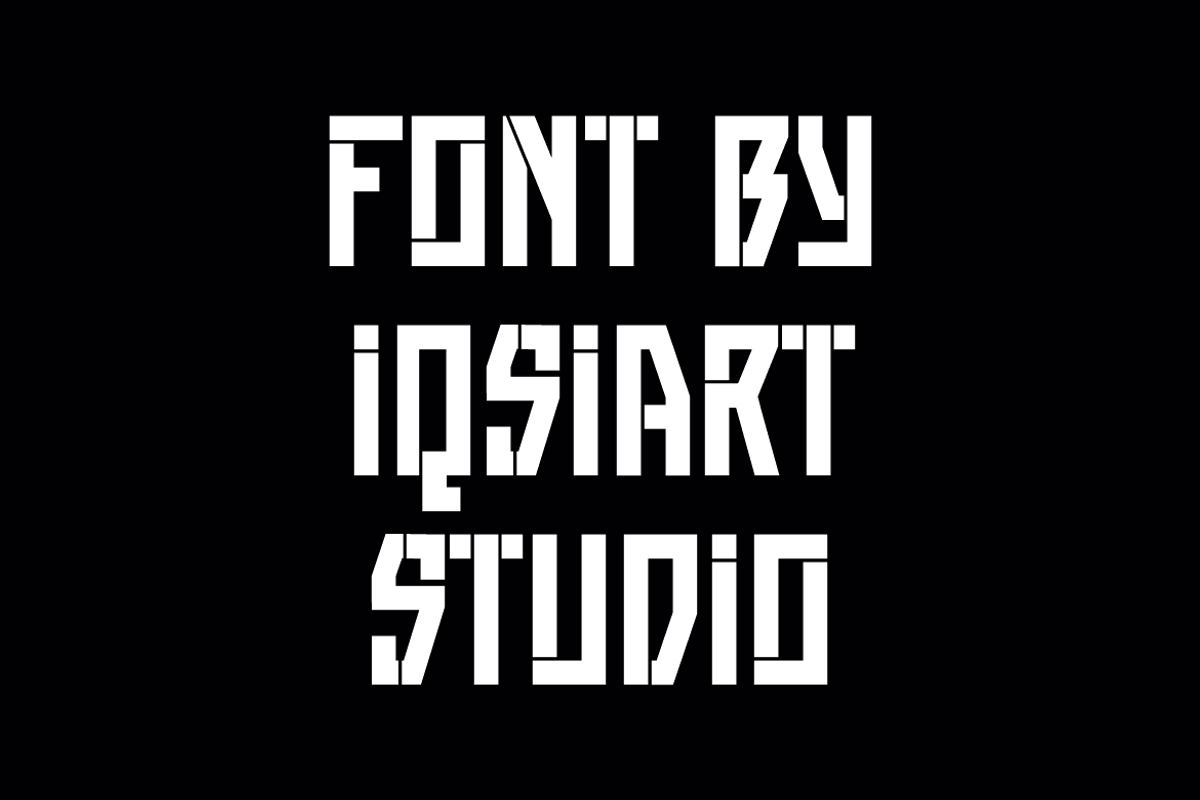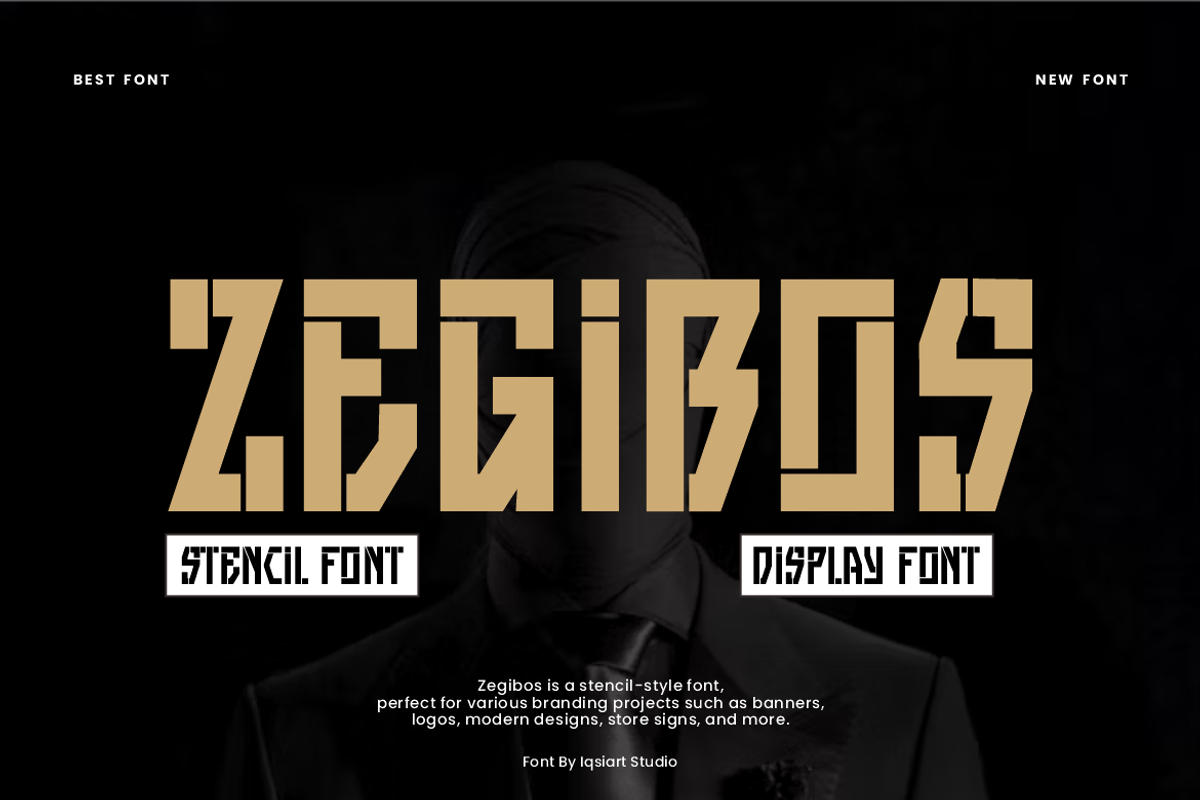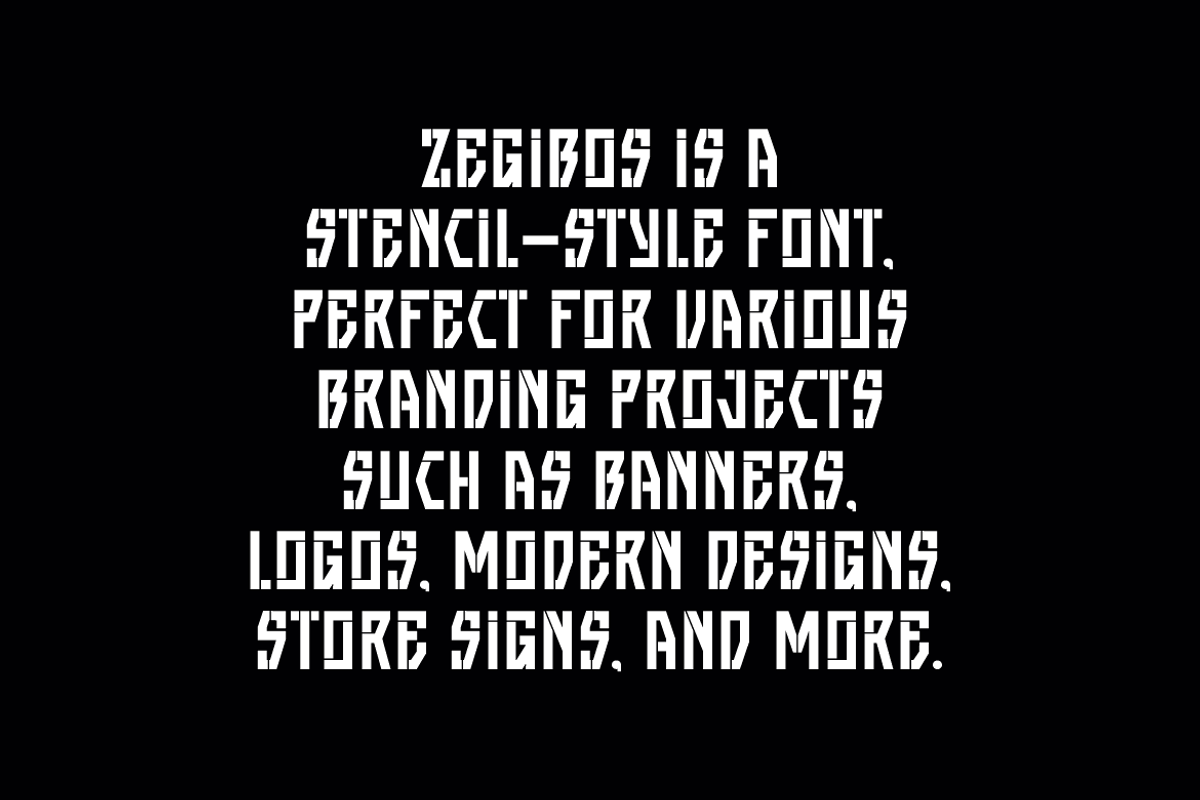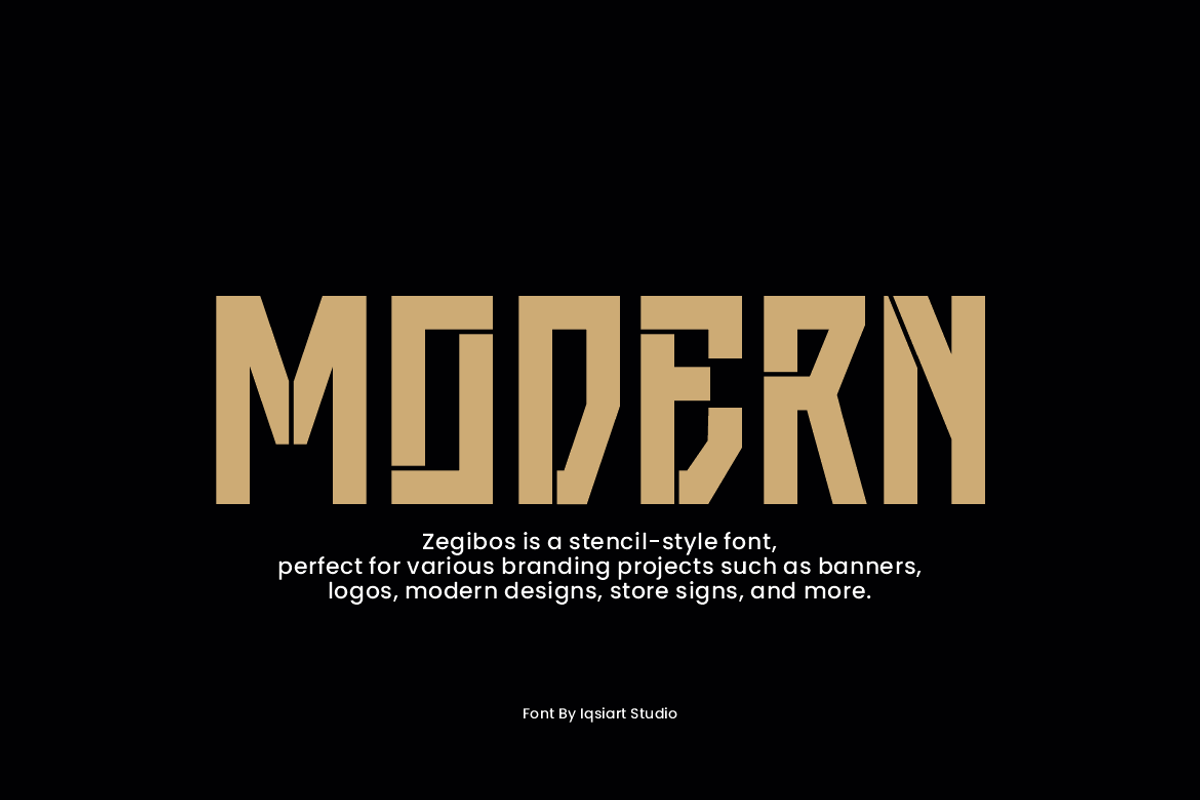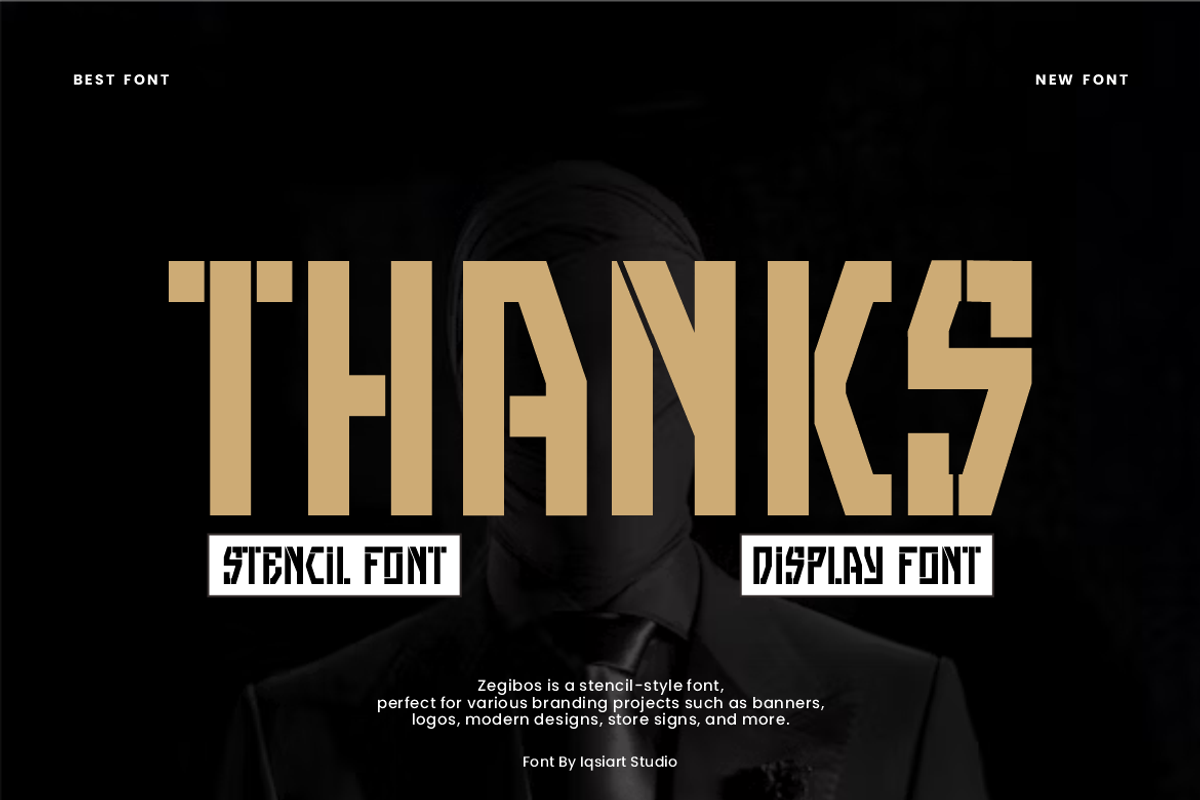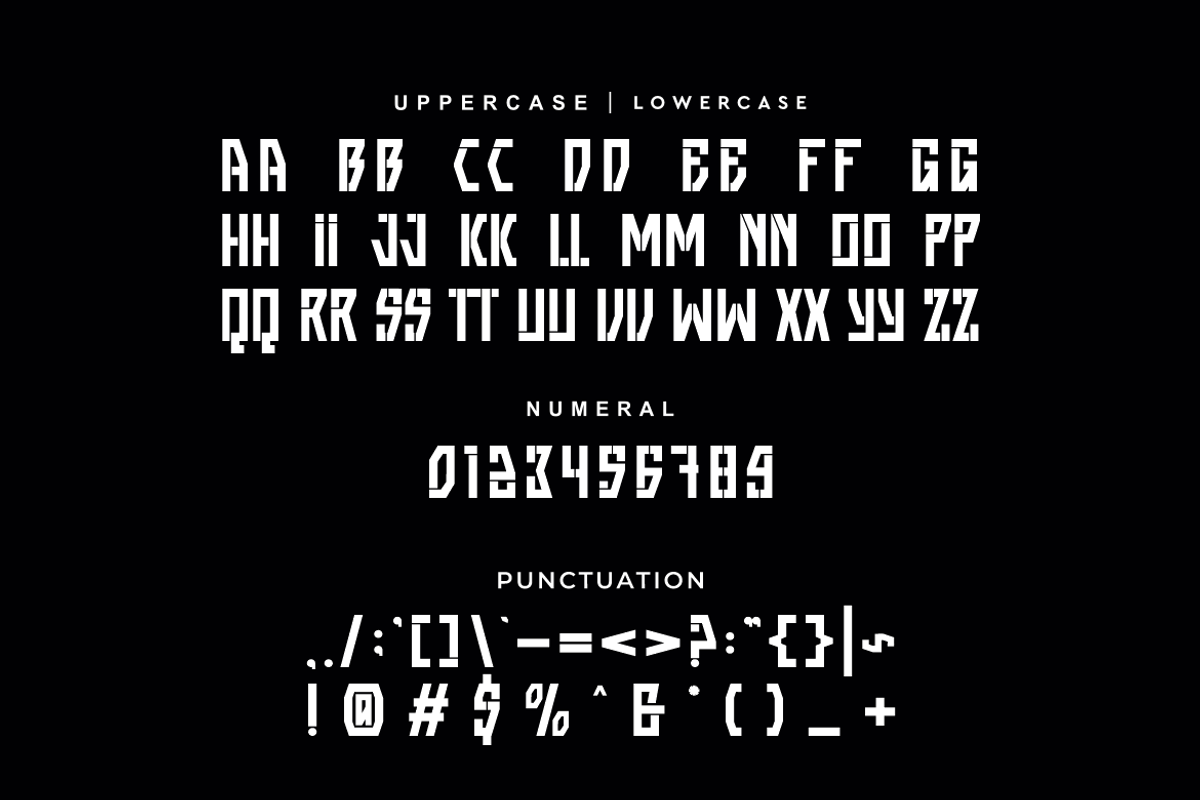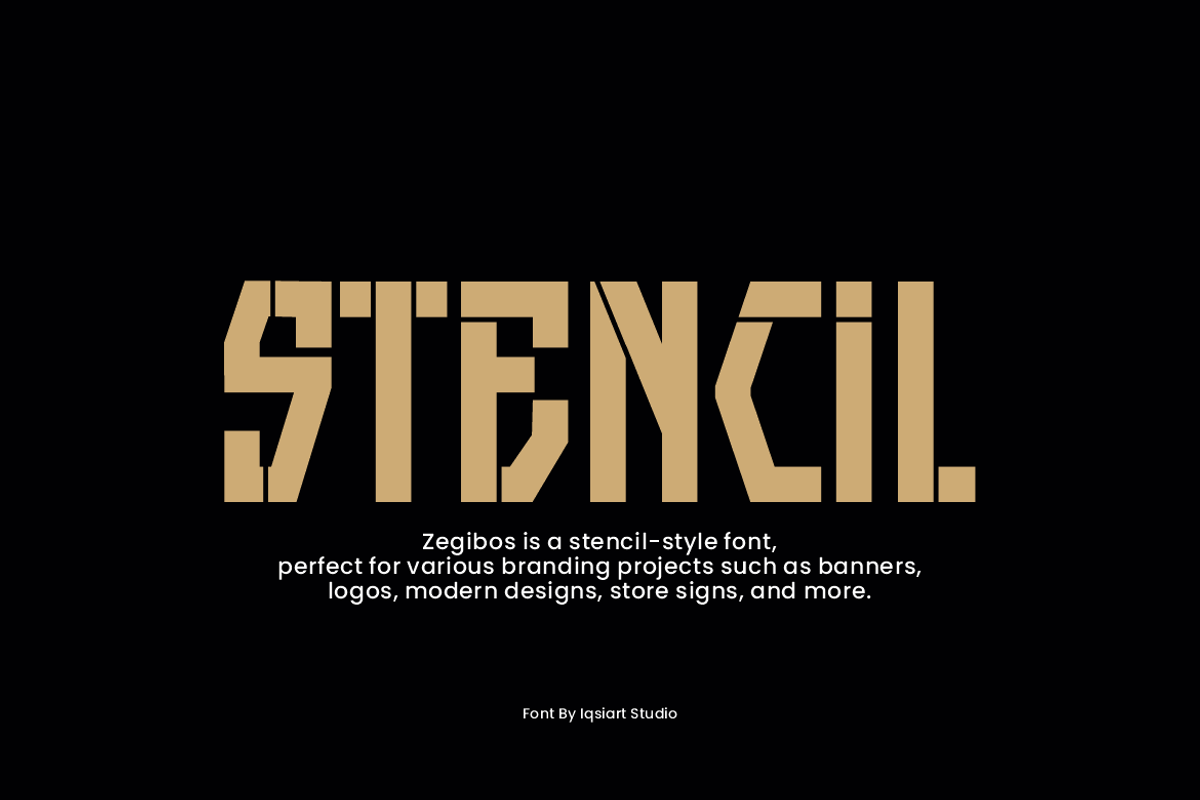
Zegibos - Stencil Font
Zegibos Font is a bold and authentic display typeface that suits a variety of design needs. We offer a wide range of themes and font styles — visit our profile to explore more and find the perfect style for your project.